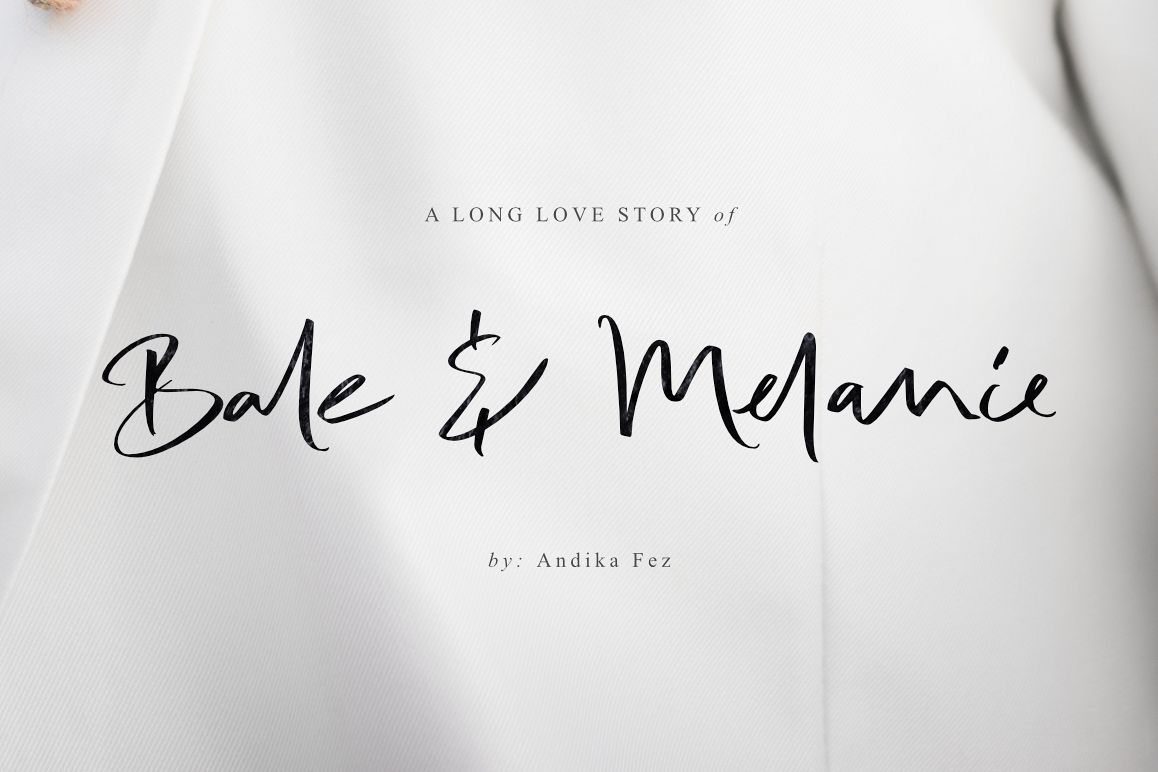
Bale & Melanie
Introducing – Bale & Melanie a Beautiful Handwritten font!
Bale & Melanie is a suitable handwritten font
for any creative project needs like wedding invitation, headline,
product promotion, product branding and many more
To create a tasteful handwritten font Bale & Melanie
contains over 80 Ligatures, here is: aa ab af ah aj ai ak al am an ap
at ax ay cb cf ck cl cp cr ct cy db dh dk dl dv dr eb ef eh ei er em en
es as et el ff ft gb gf gg gh gi gj gk gl gt hk hl ht ii ib is ie ou
itt ef jb jh jr jk jl jt mb mm mh mv ml mk mt mp mr nh nl ob of og oh
oi oj ok ol om on op or os ot ov oy sb sl st sk sm sn tb tf tl tt th th
ost est ist eis